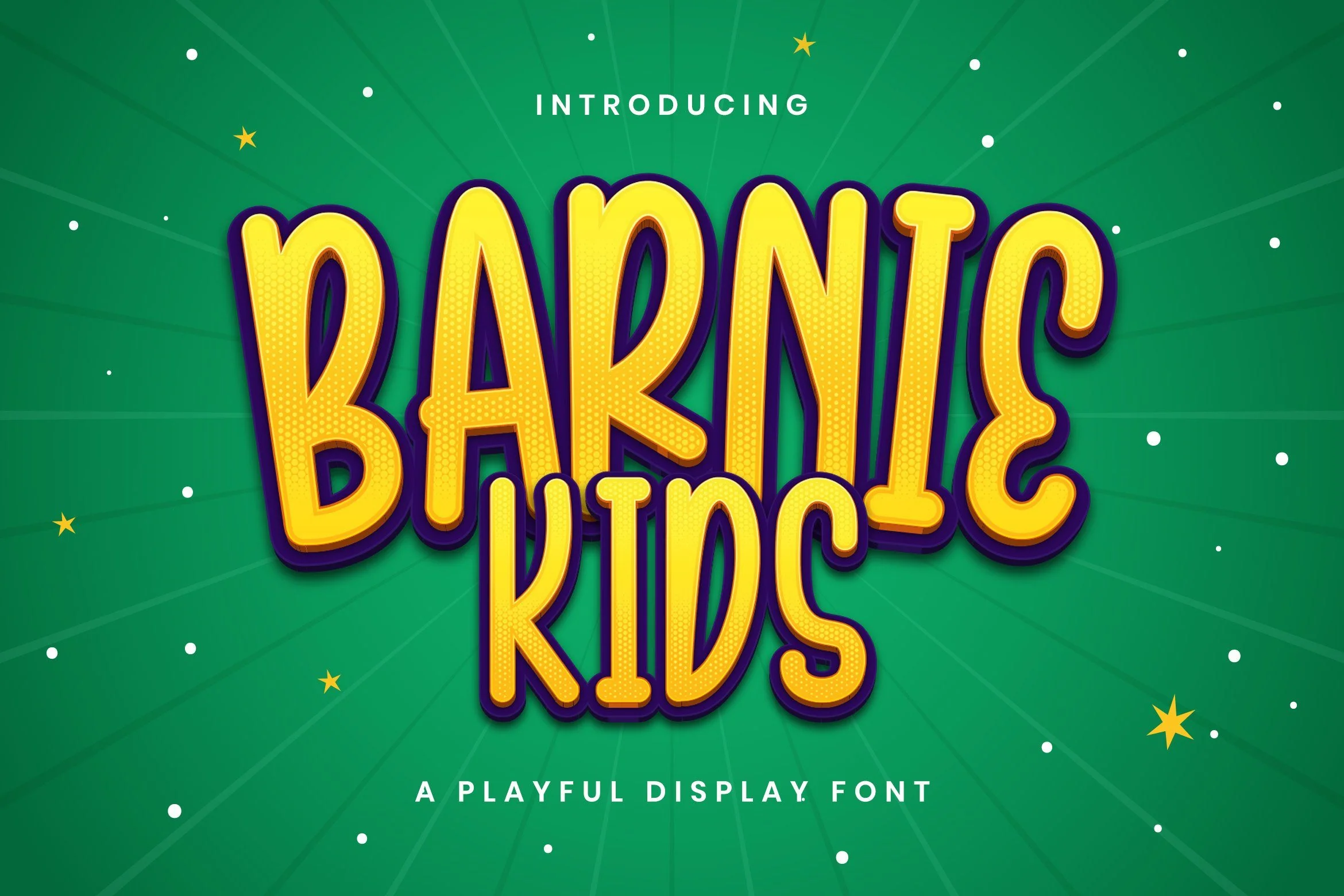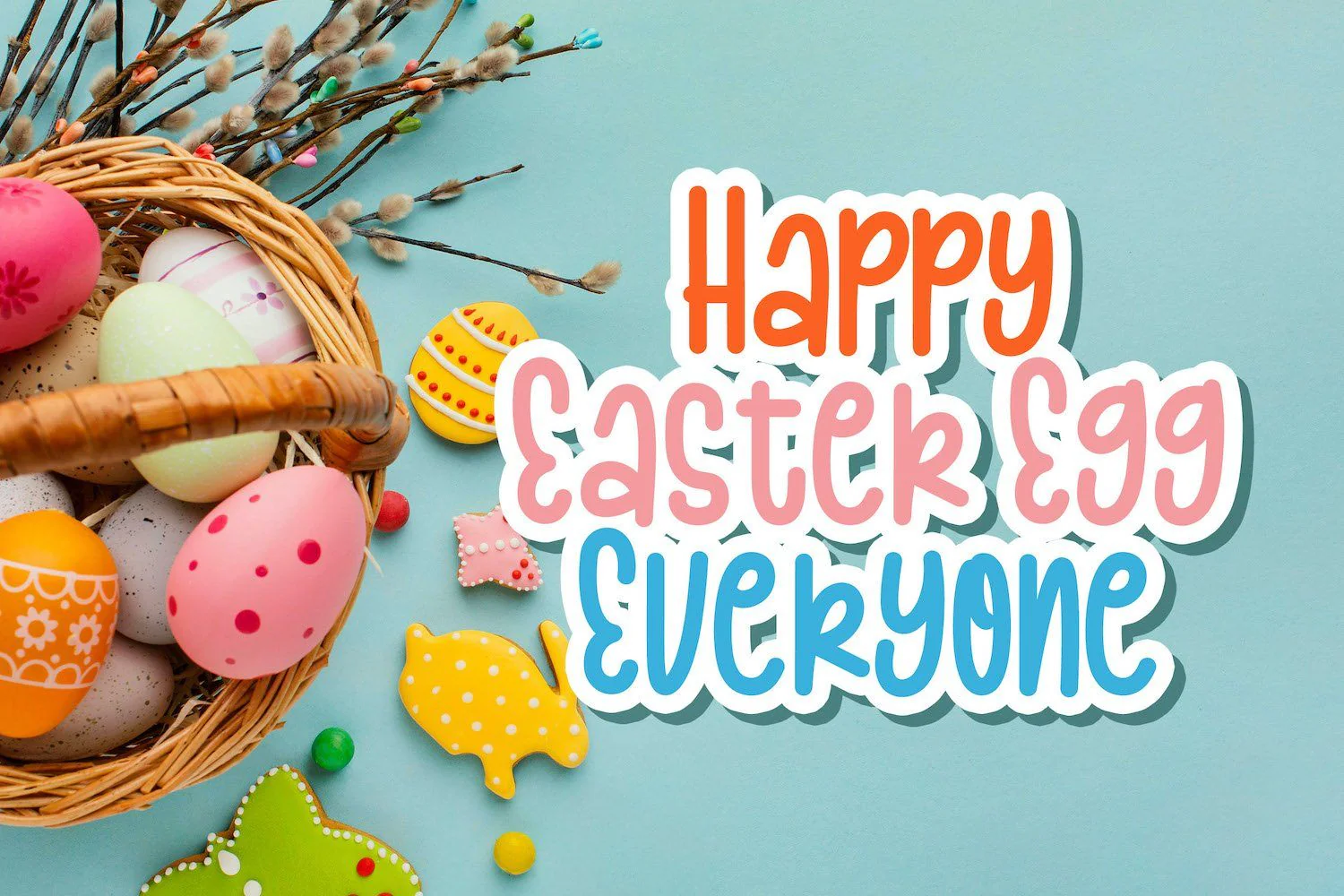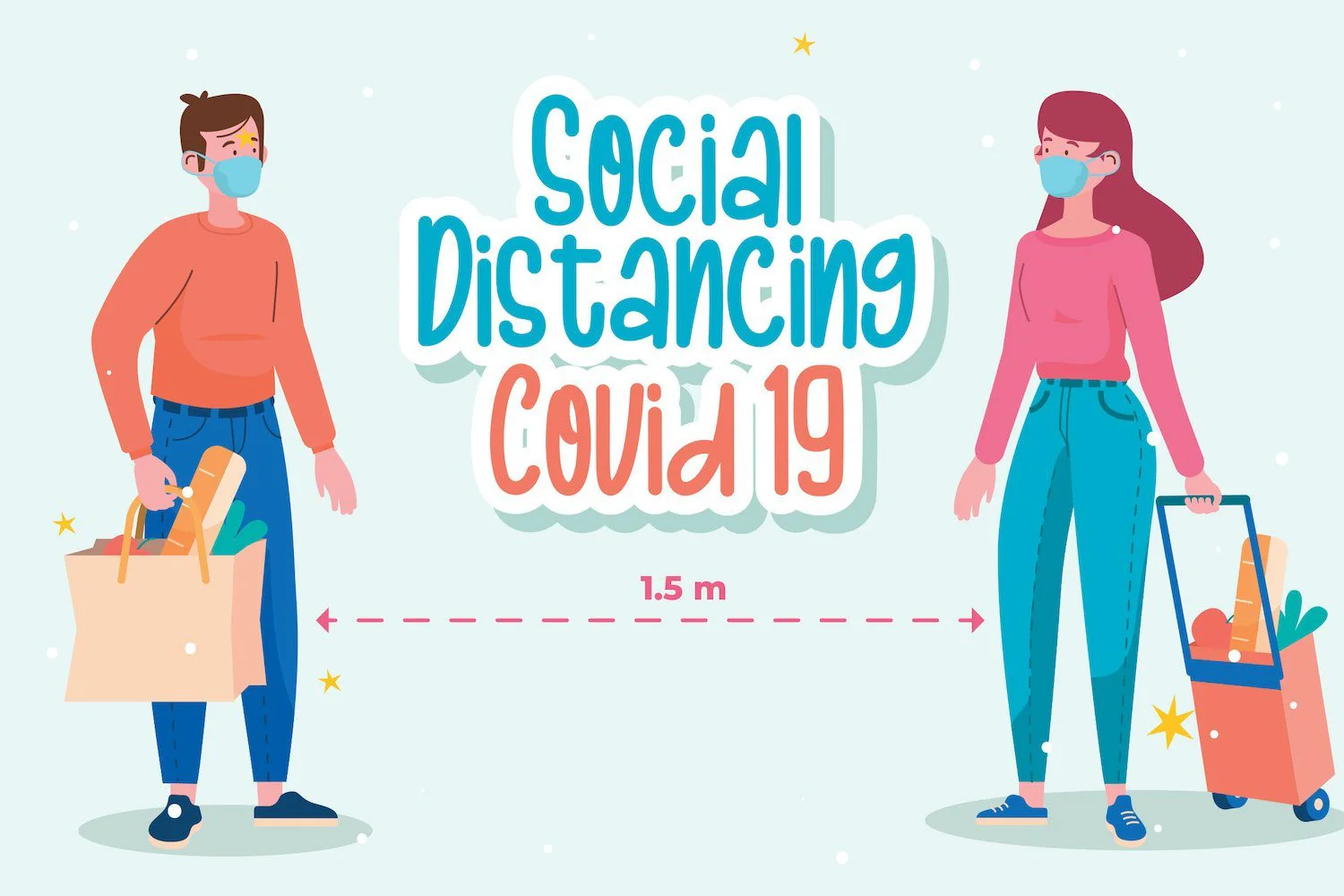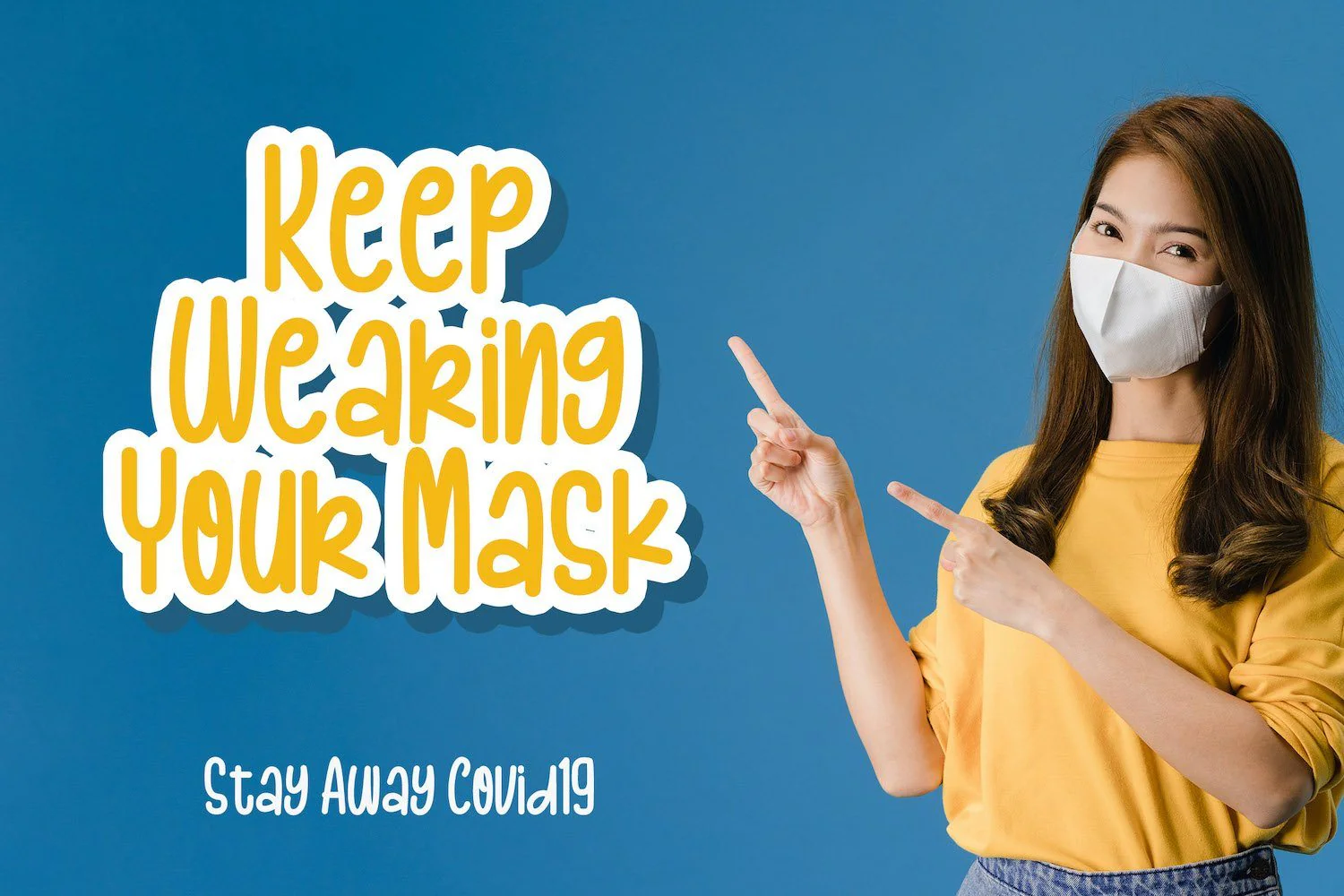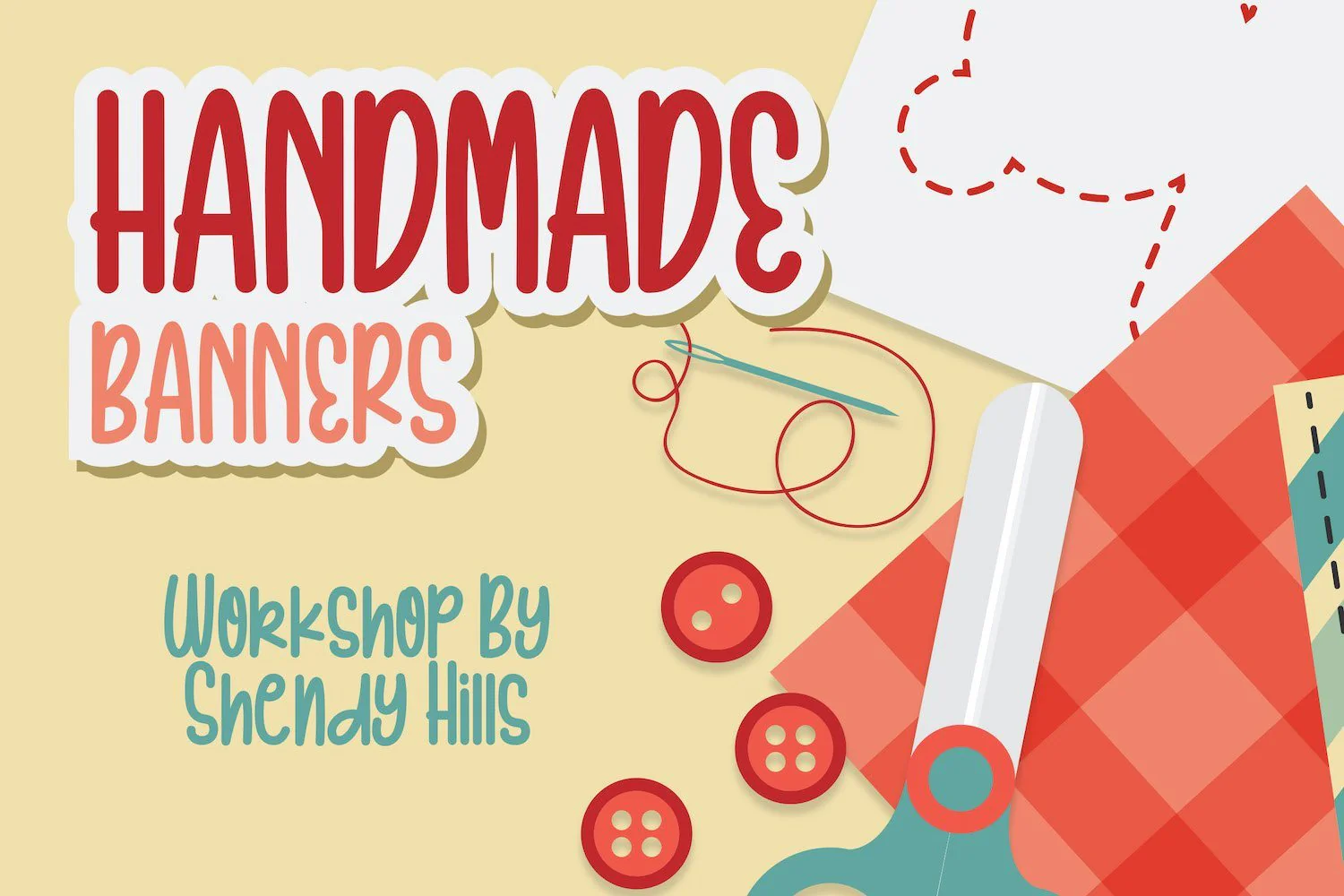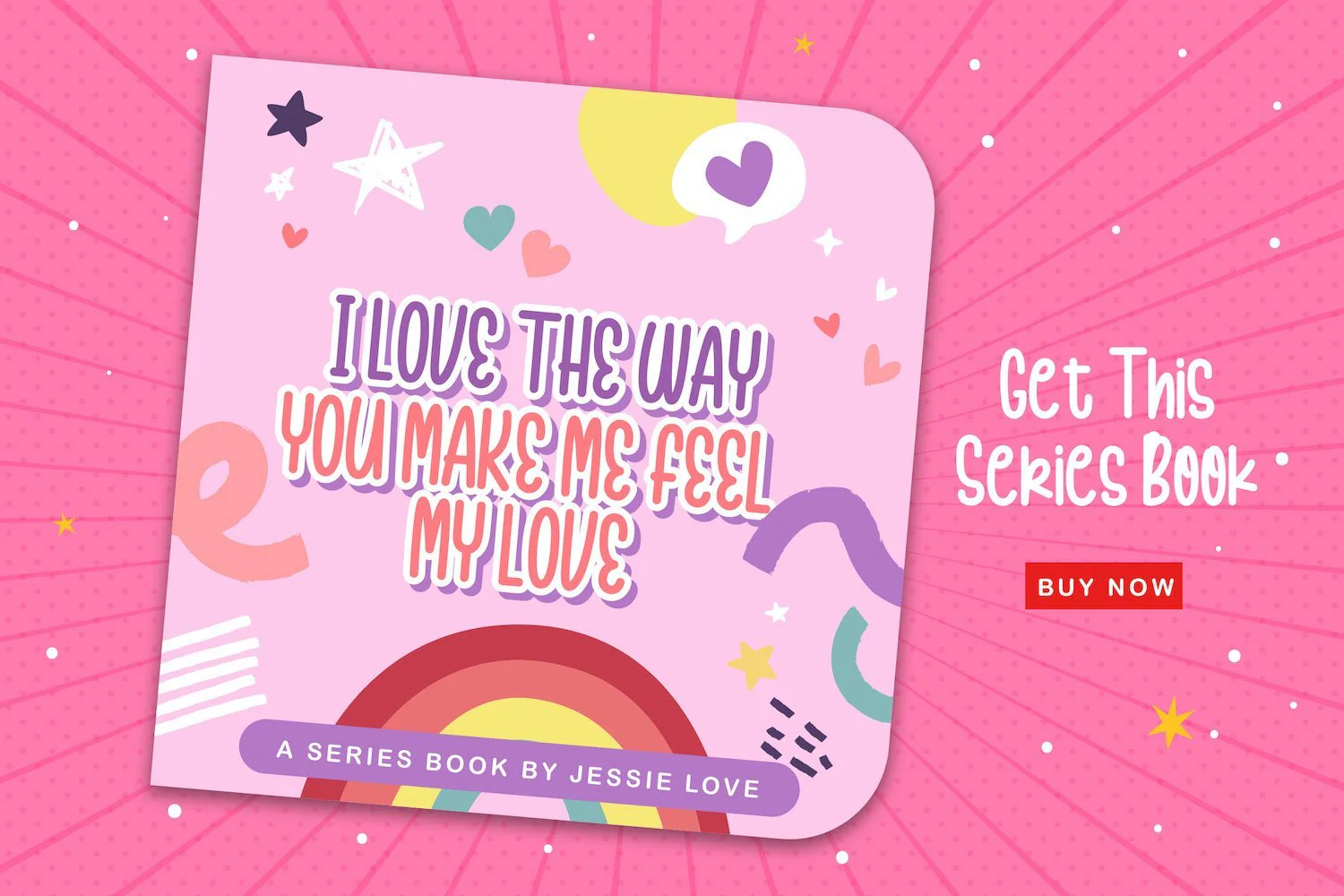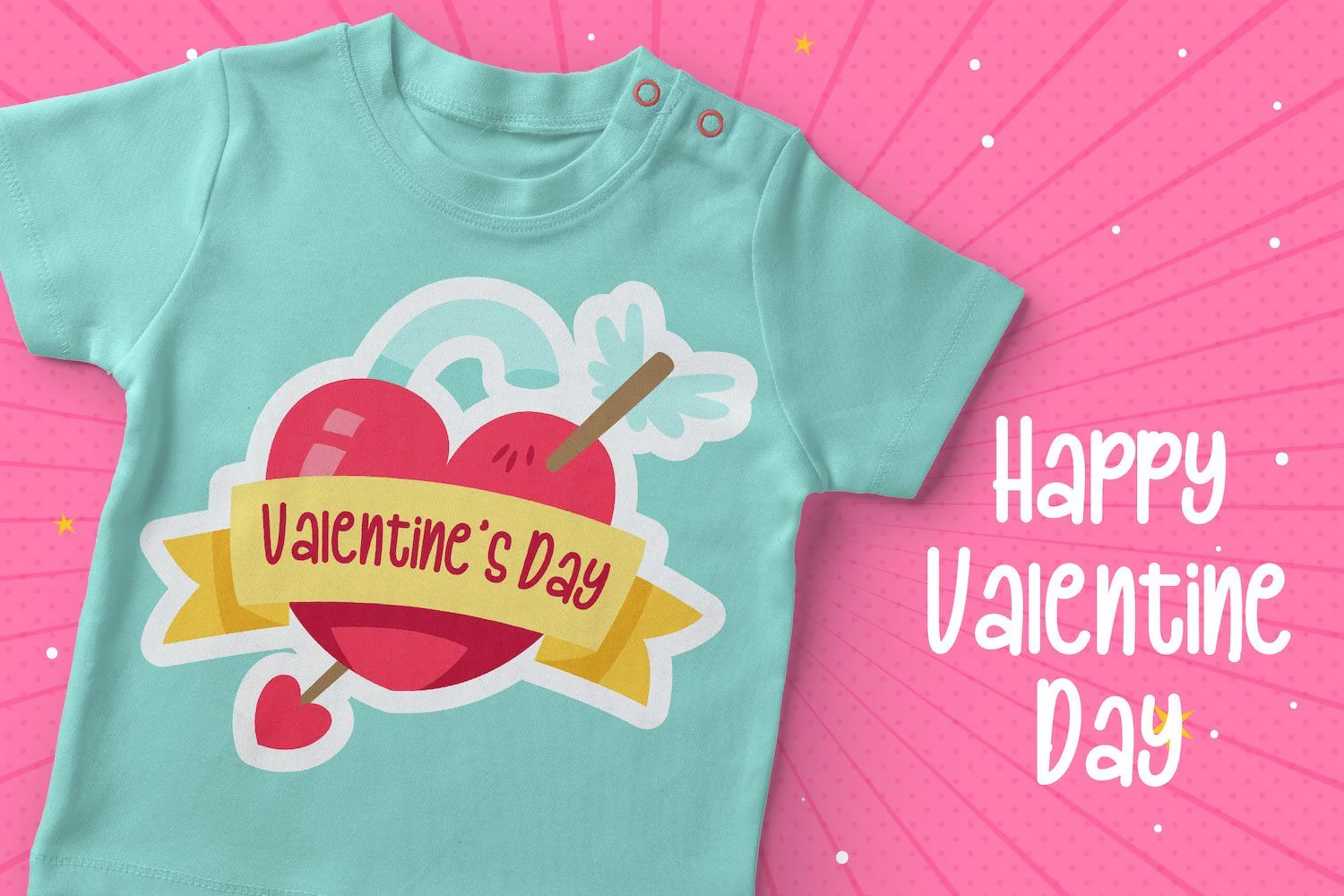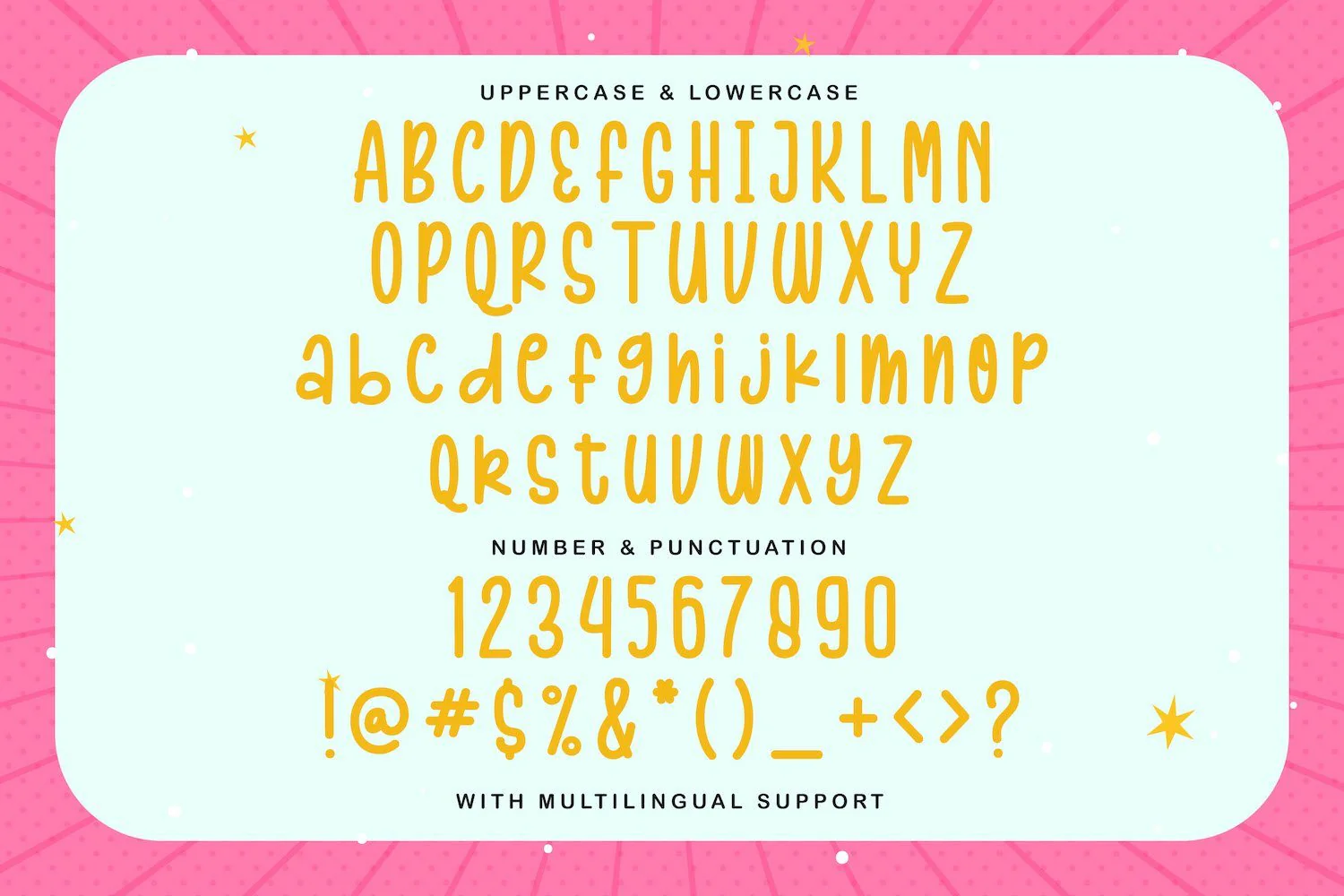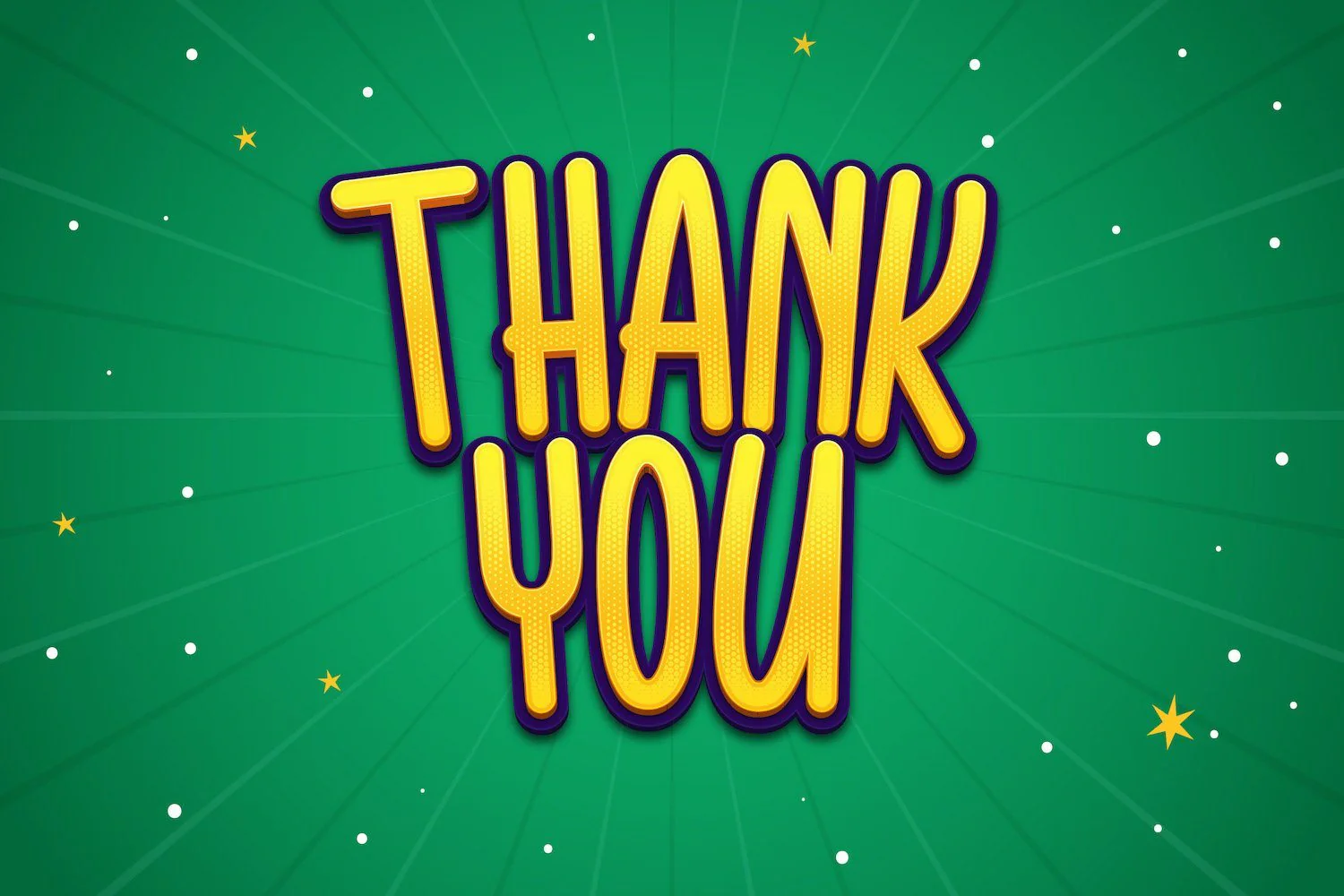
Barnie Kids - Playful Display Font
Introducing Barnie Kids - Playful Display Font
Barnie Kids is a fun display font. Playful and fresh, this font will be a hit for each of your children or school projects!
Introducing Barnie Kids - Playful Display Font
Barnie Kids is a fun display font. Playful and fresh, this font will be a hit for each of your children or school projects!